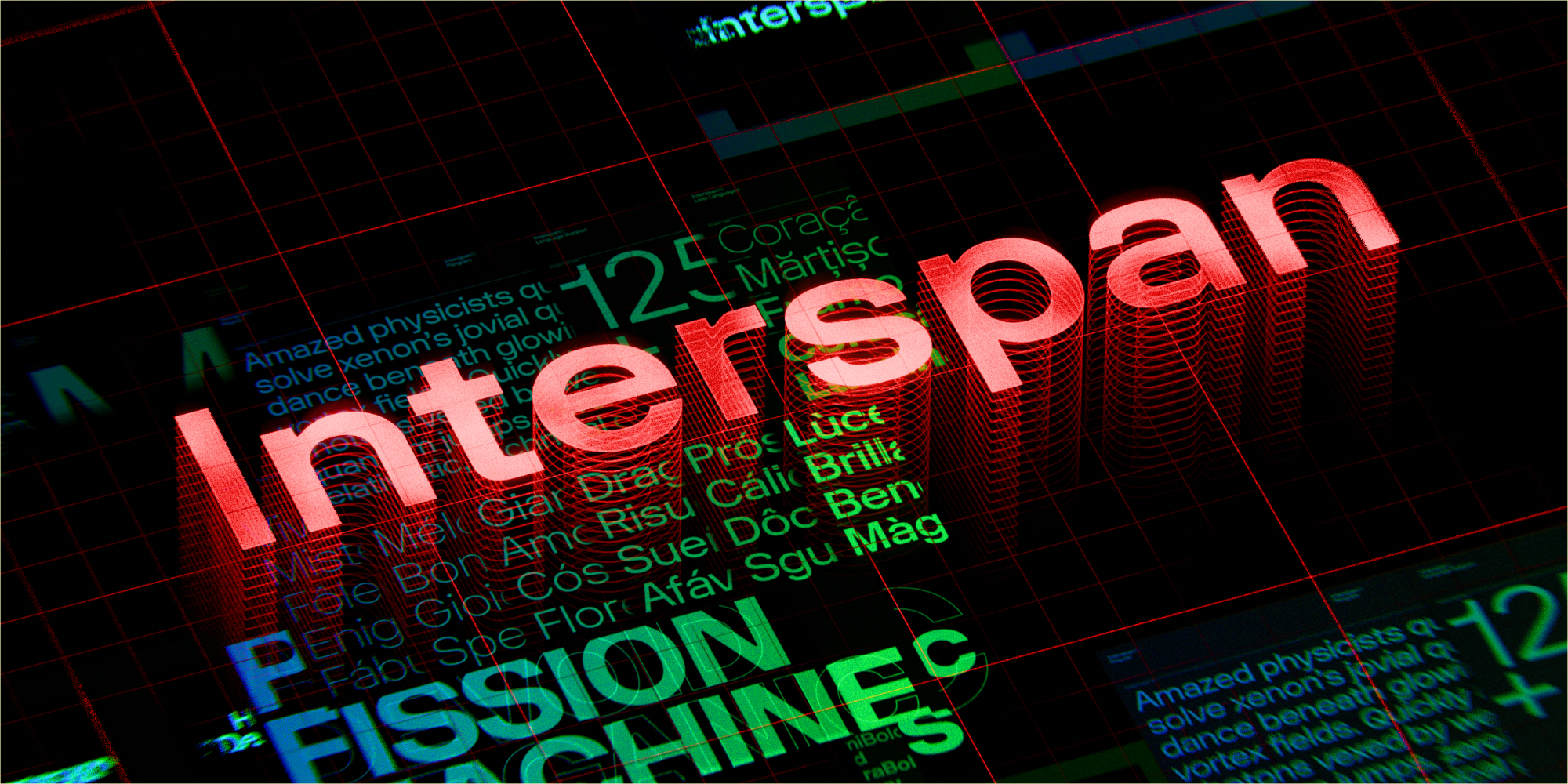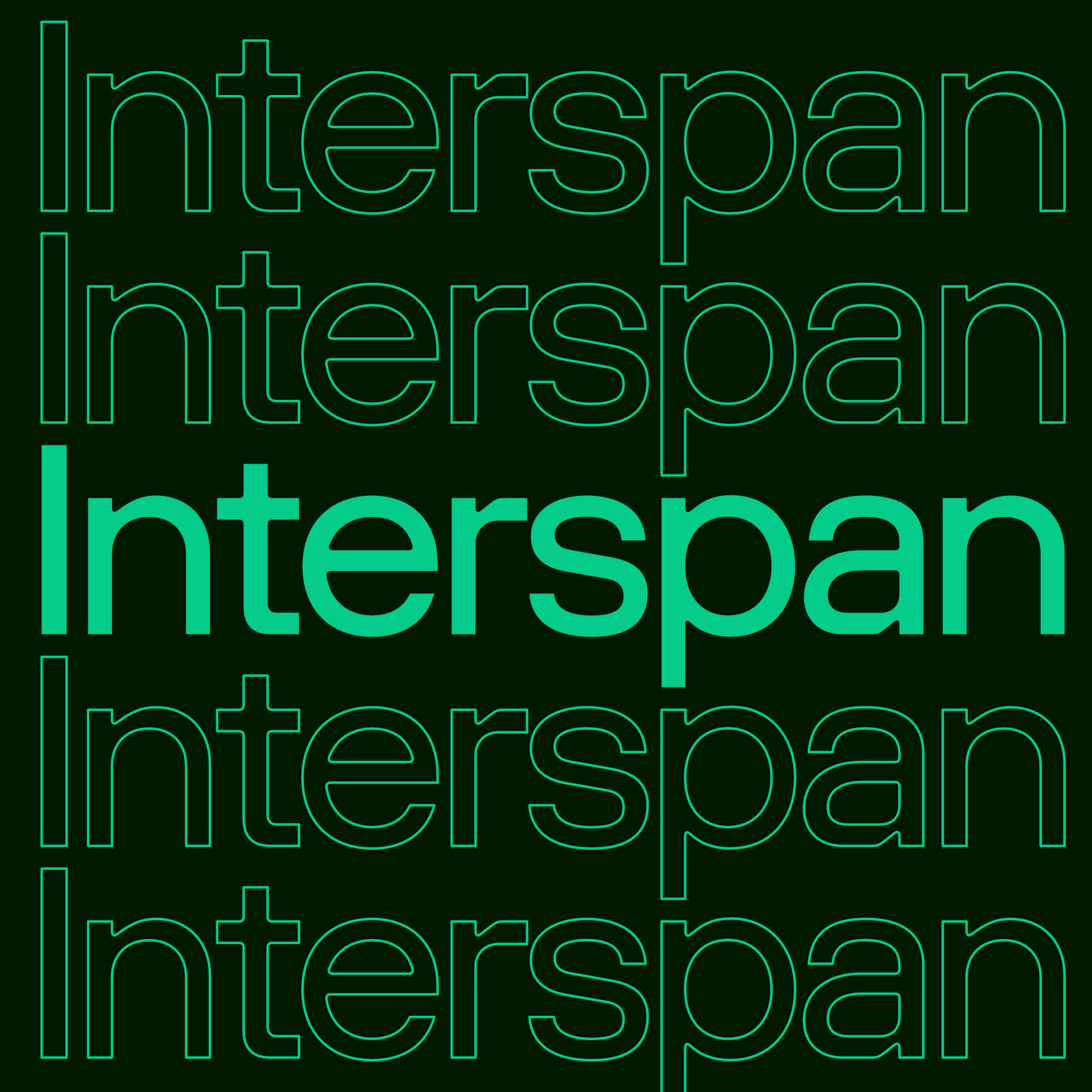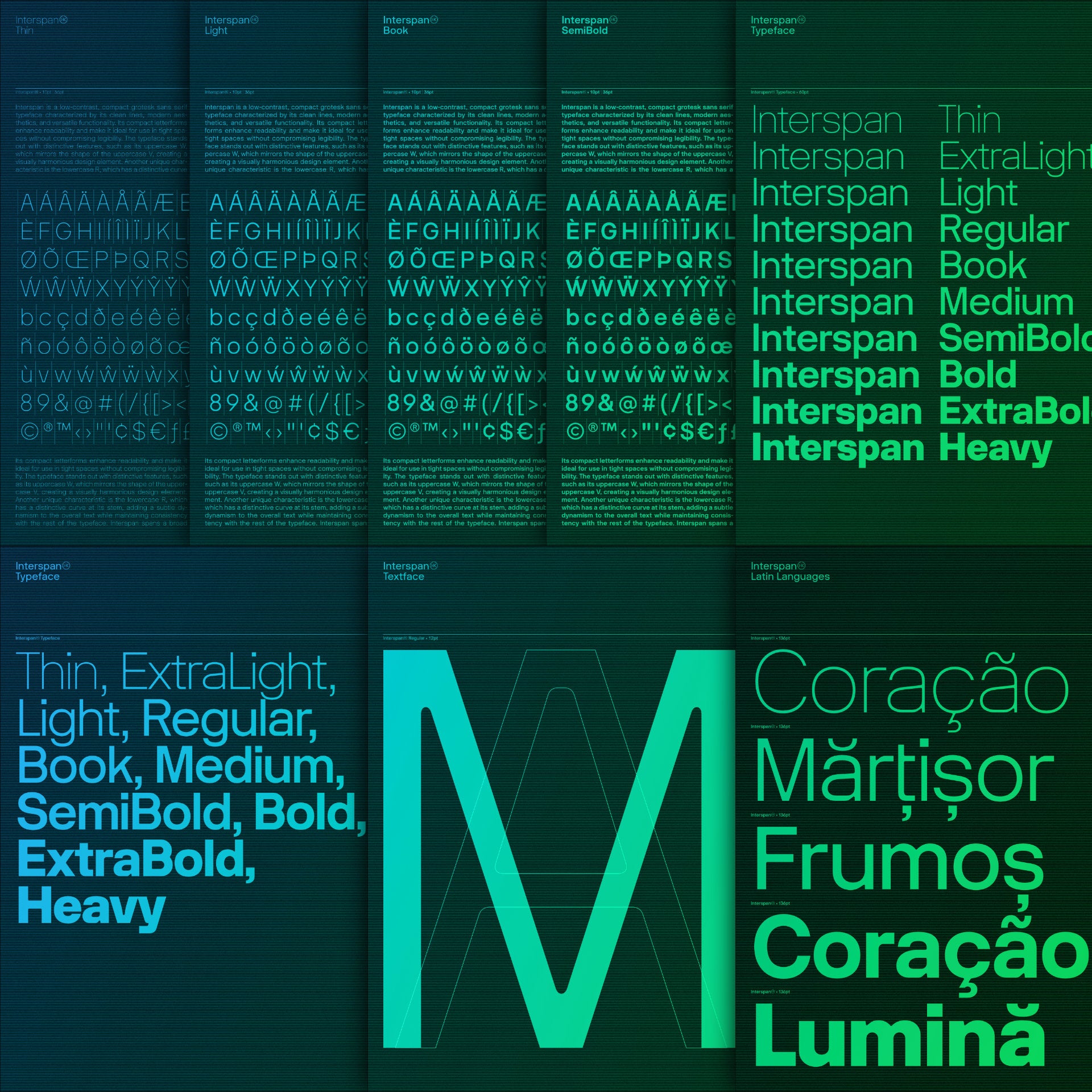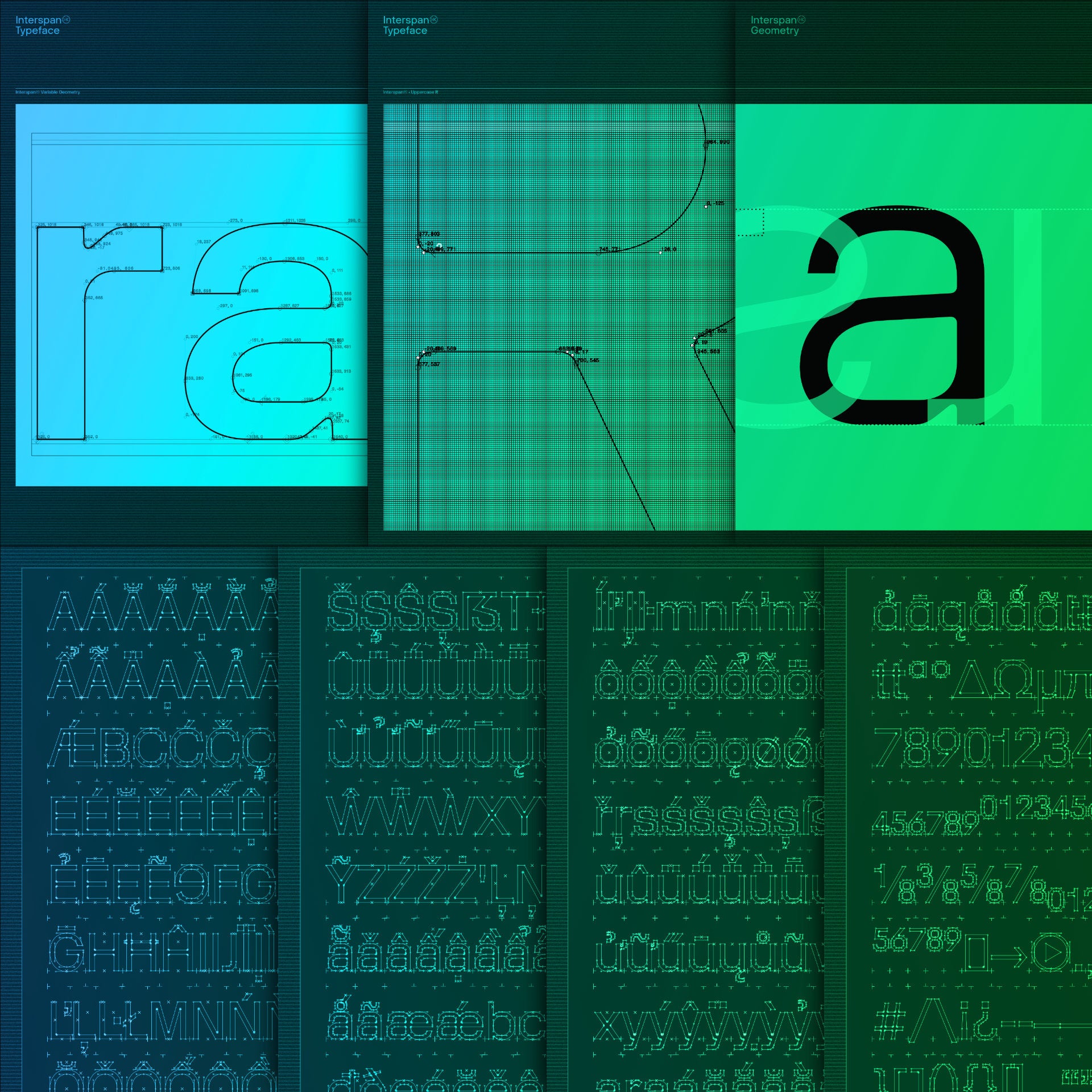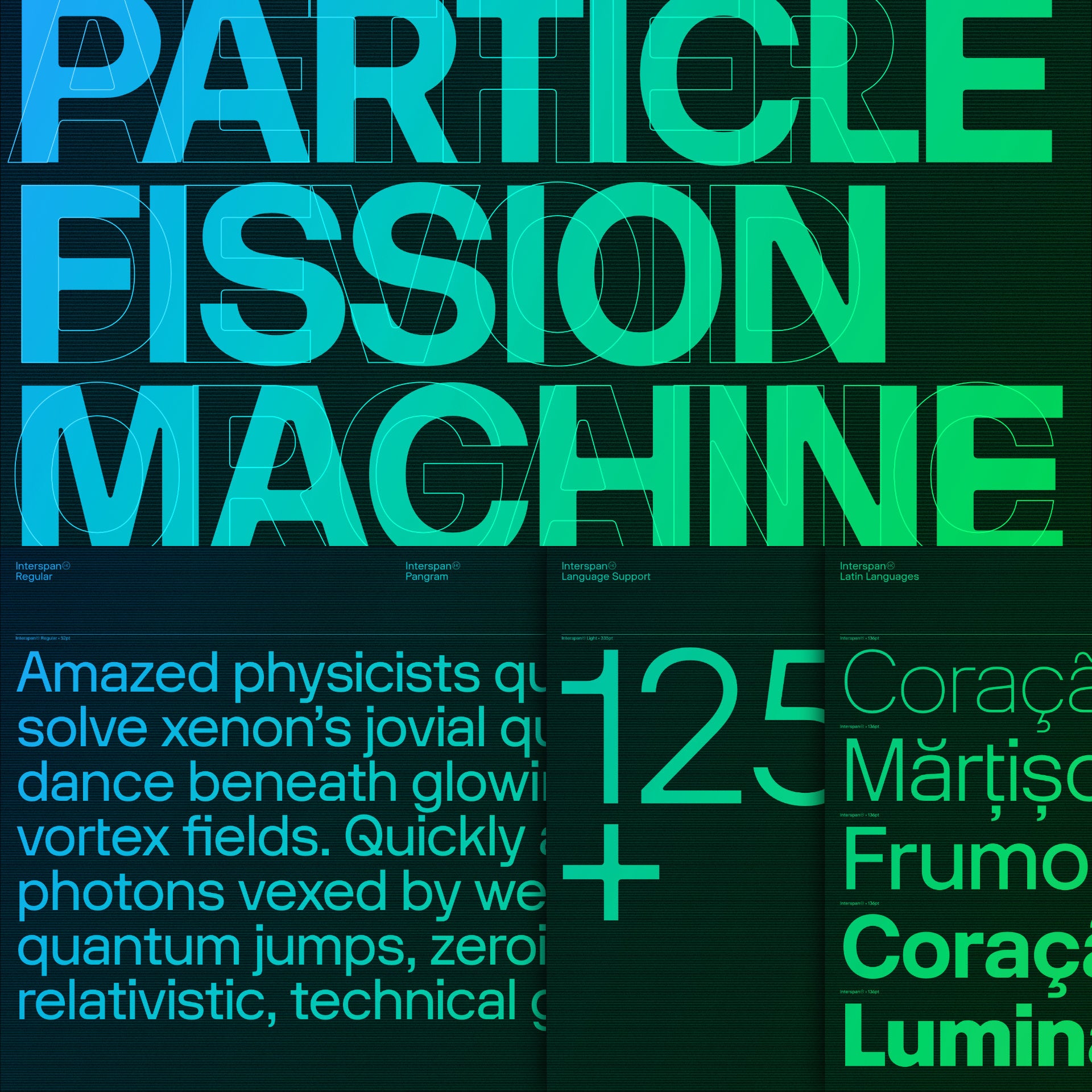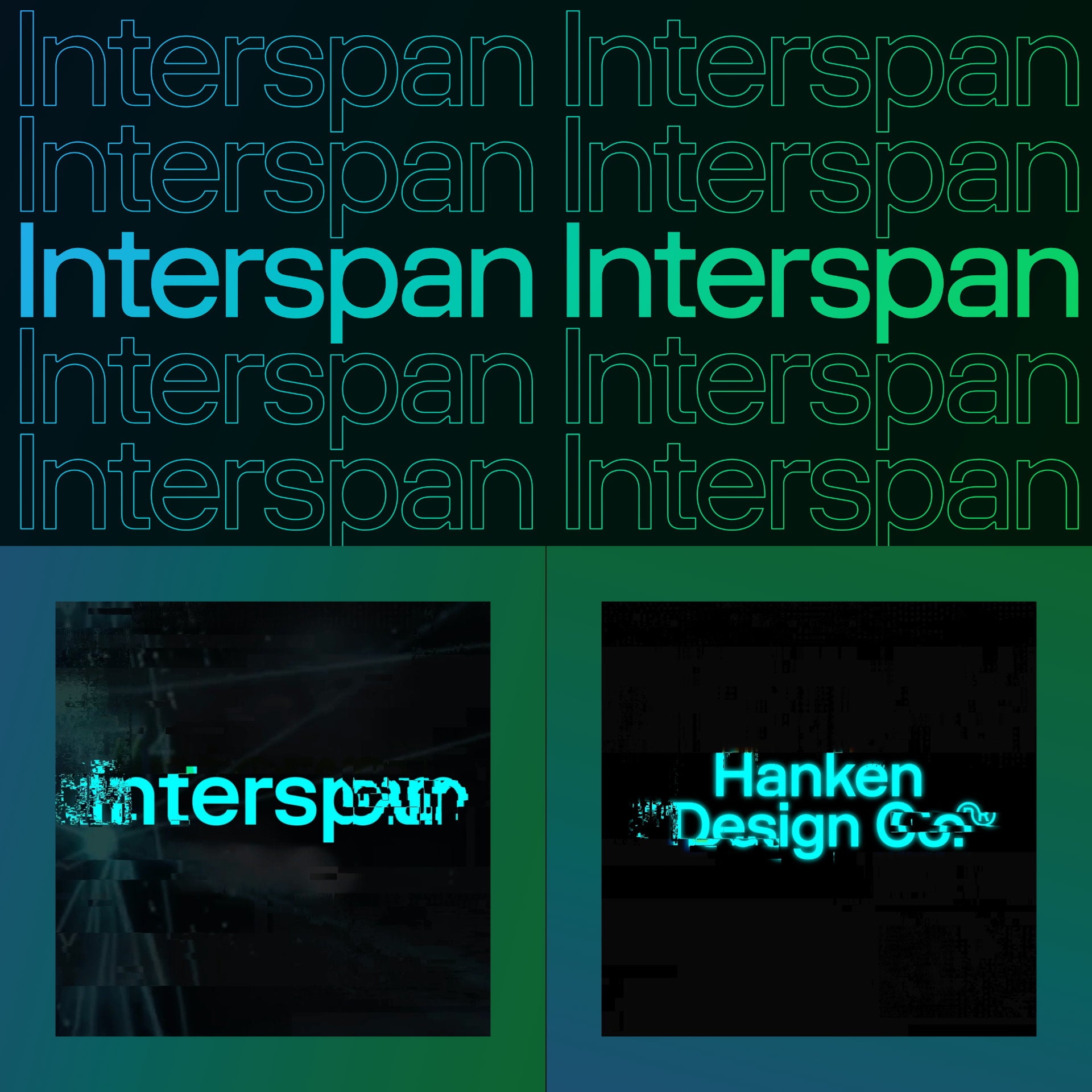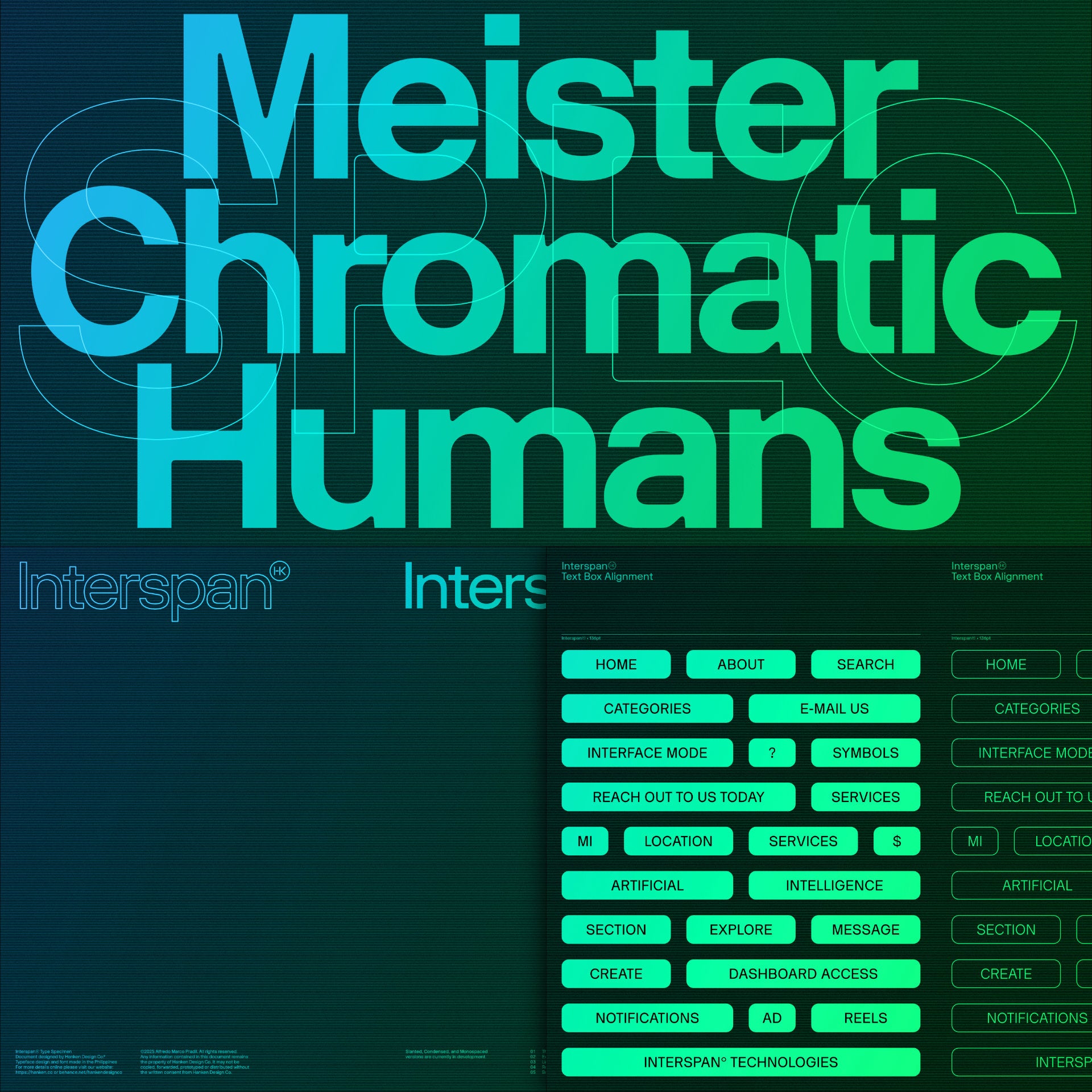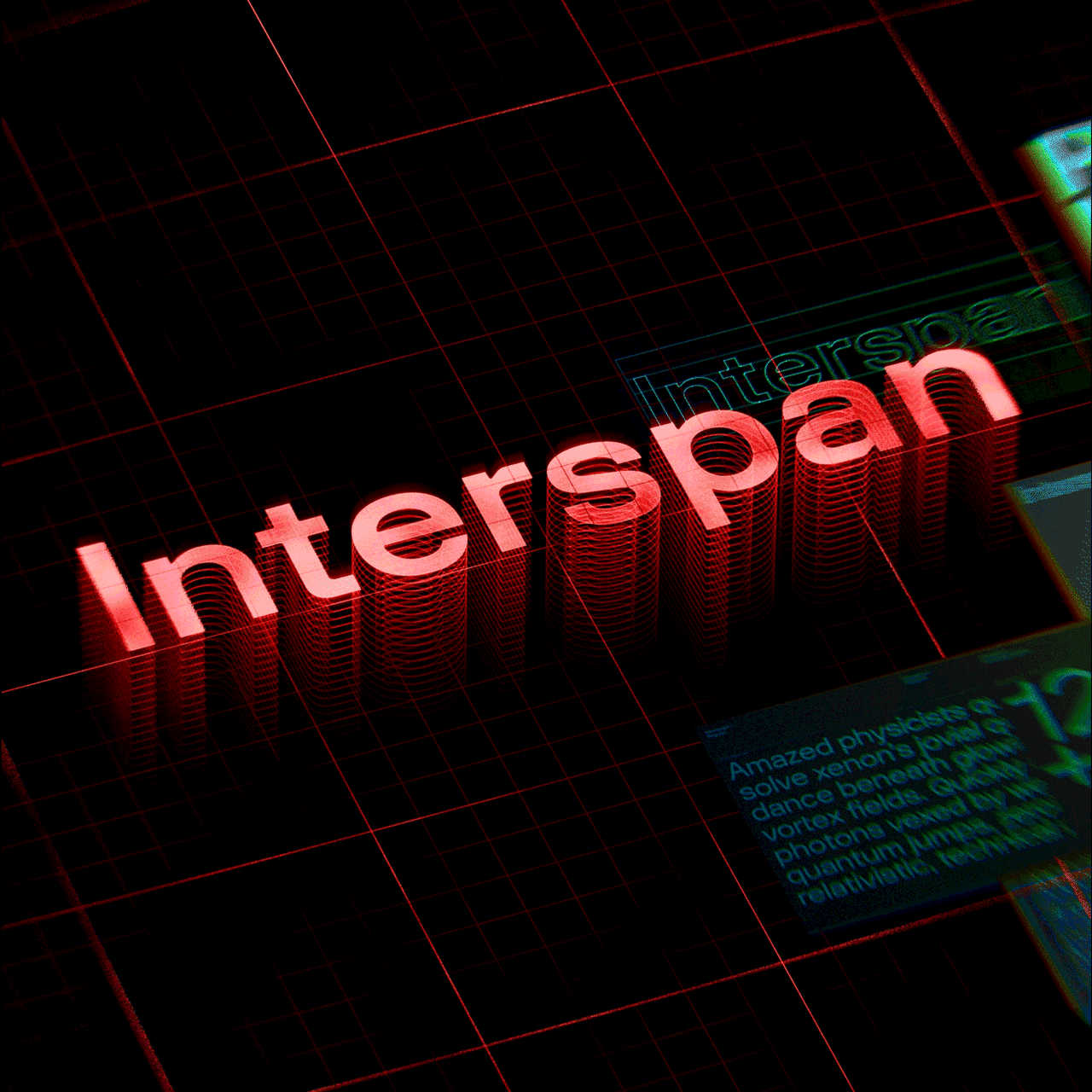
Interspan
Interspan is a compact, low-contrast grotesk sans serif designed for versatility, featuring condensed letterforms for enhanced readability in tight spaces and a broad weight range from Thin to Heavy. Distinctive details like the mirrored V/W and curved 'r' stem lend subtle personality, making it suitable for both display and body text in modern branding and editorial applications.